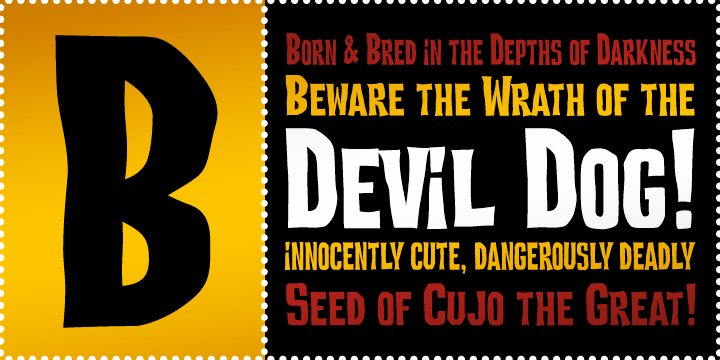
Devil Dog is a fun, yet scary typestyle inspired by retro Frankenstein and other horror movie posters.
It’s big, it’s bold, it’s caps and smallcaps, and it’s a typeface monster!